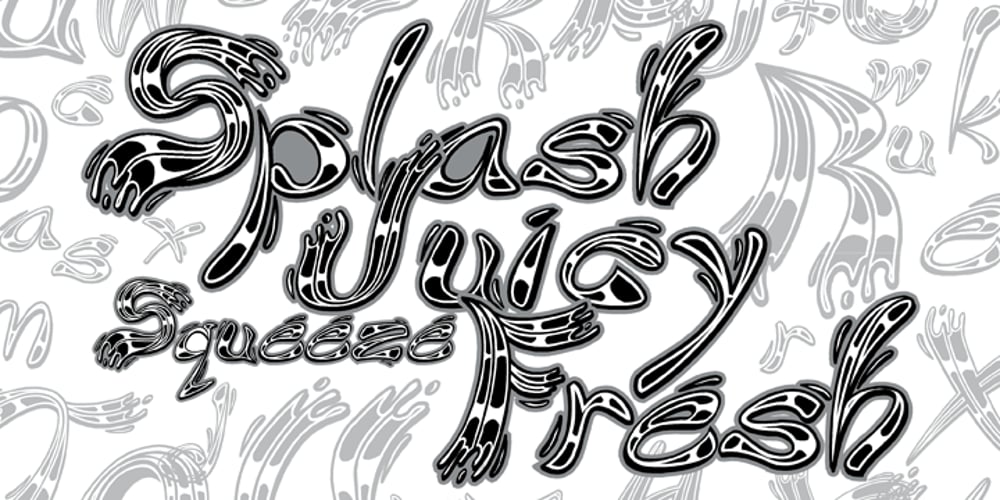
Fresh Squeezed Font Family was designed by Jose Robles and published by LetterBalm. Fresh Squeezed contains 2 styles and family package options. A Splashy font inspired by all things liquid and wet, the goal was to create a fun and realistic representation of water in the form of a letter. Water parks, Juice bars, your backyard pool party or your box of fresh squeezed orange juice, any time you need a good splash.